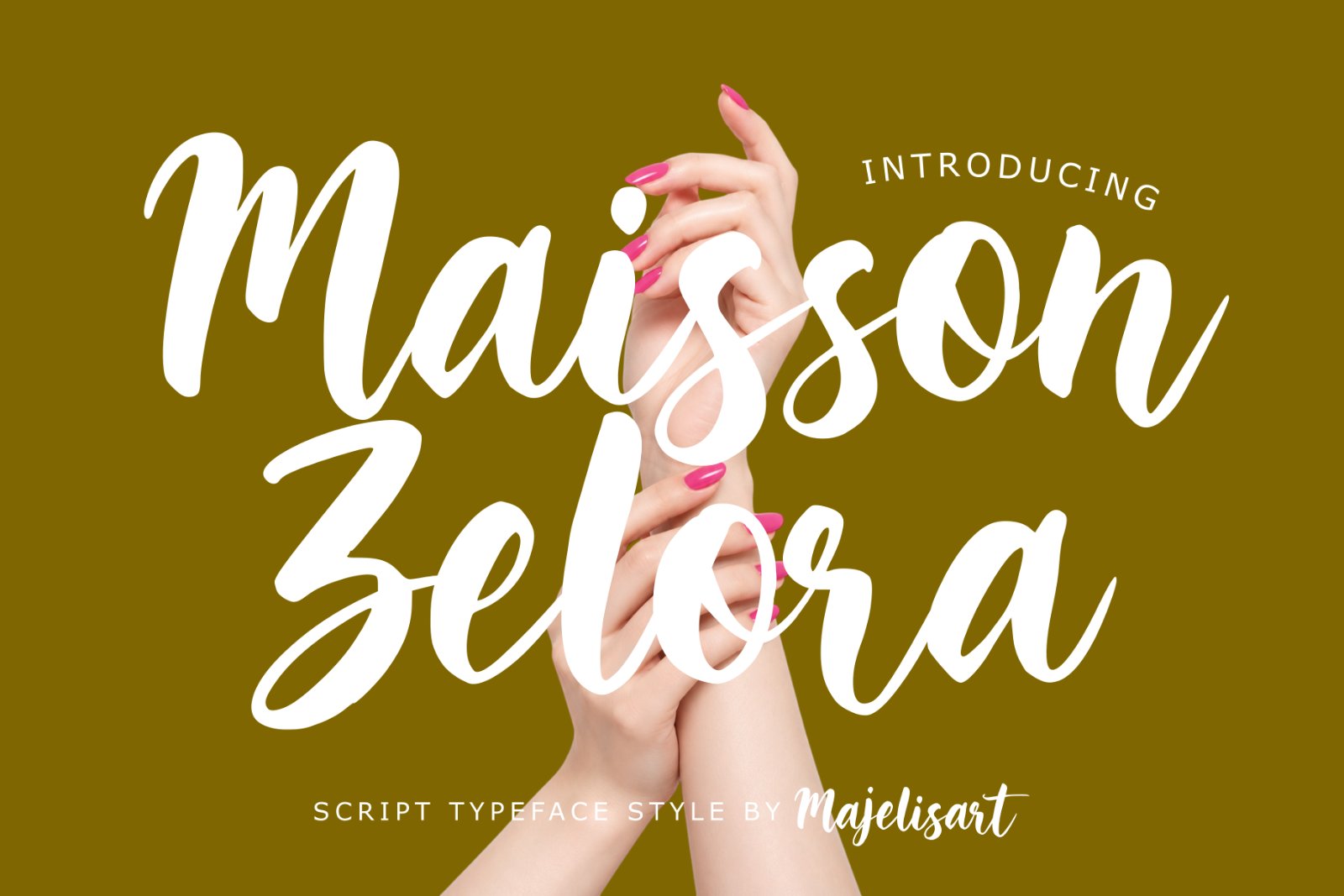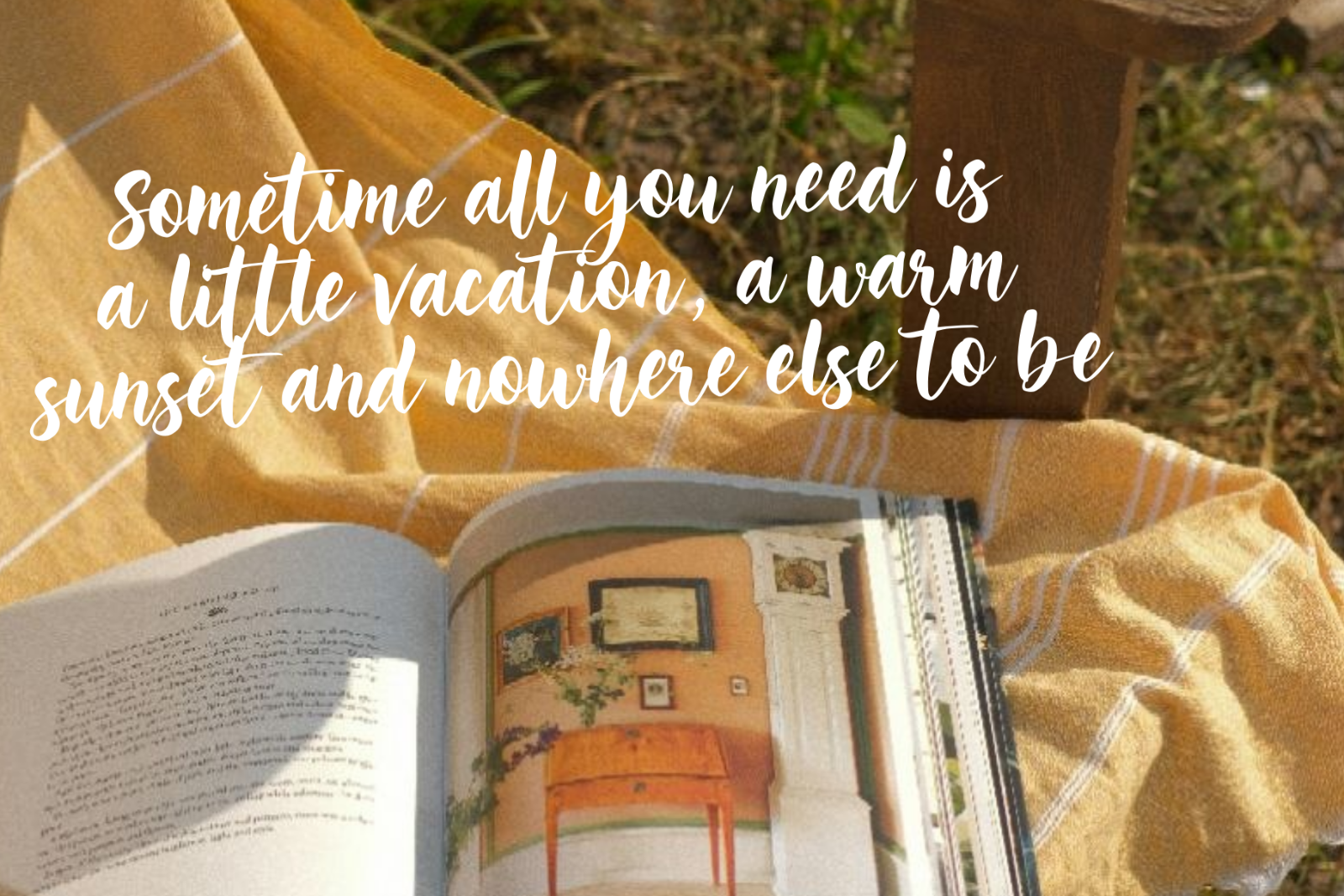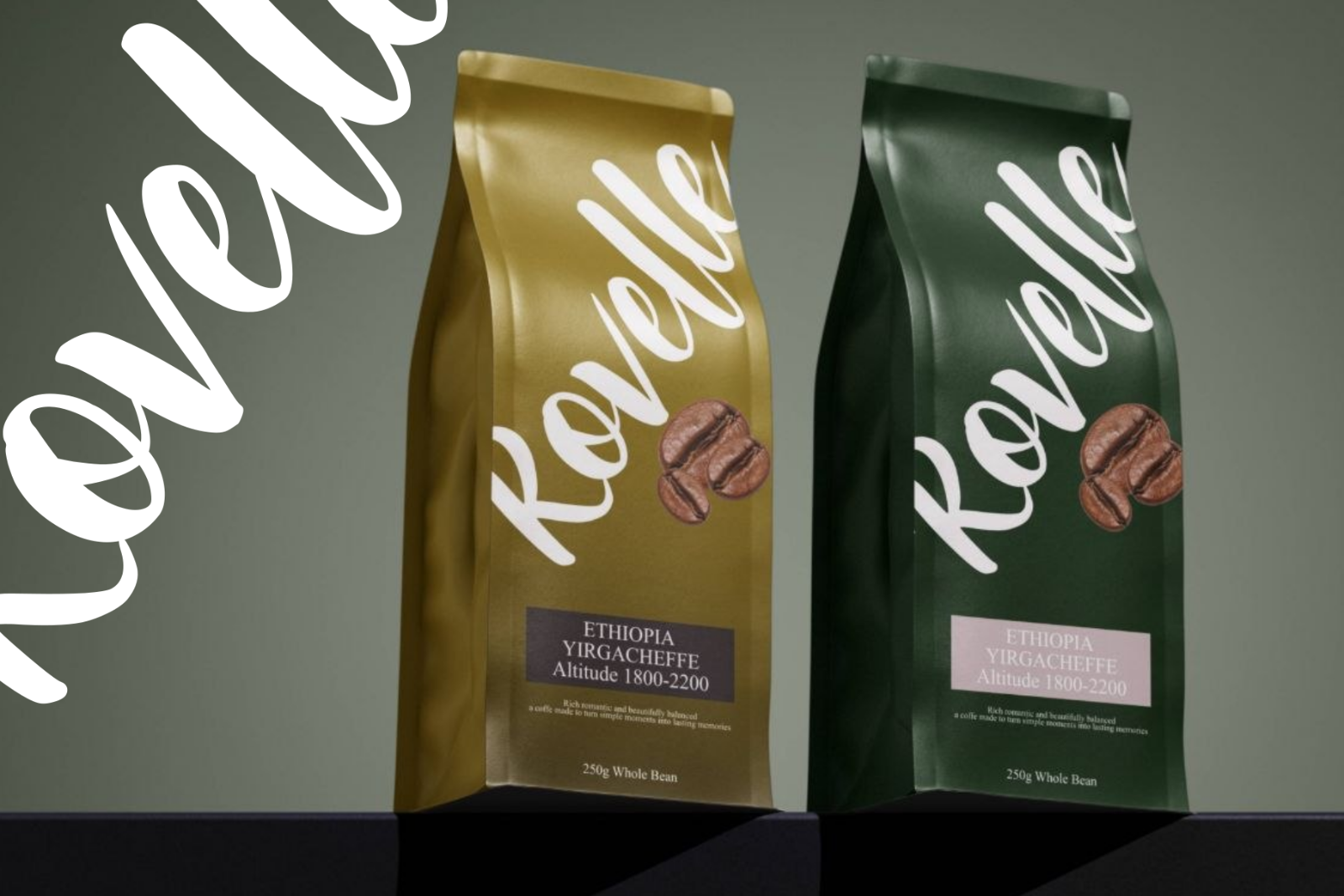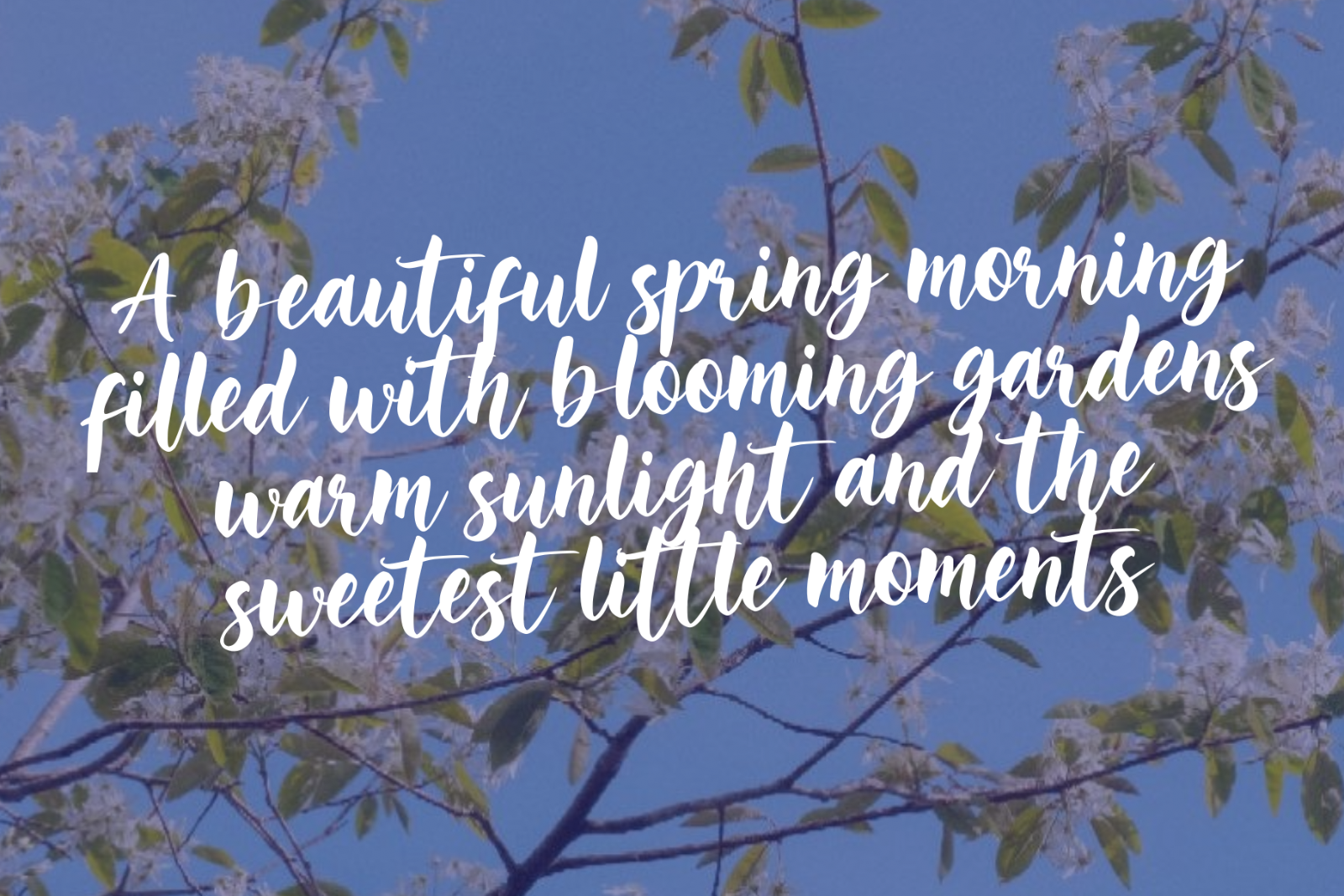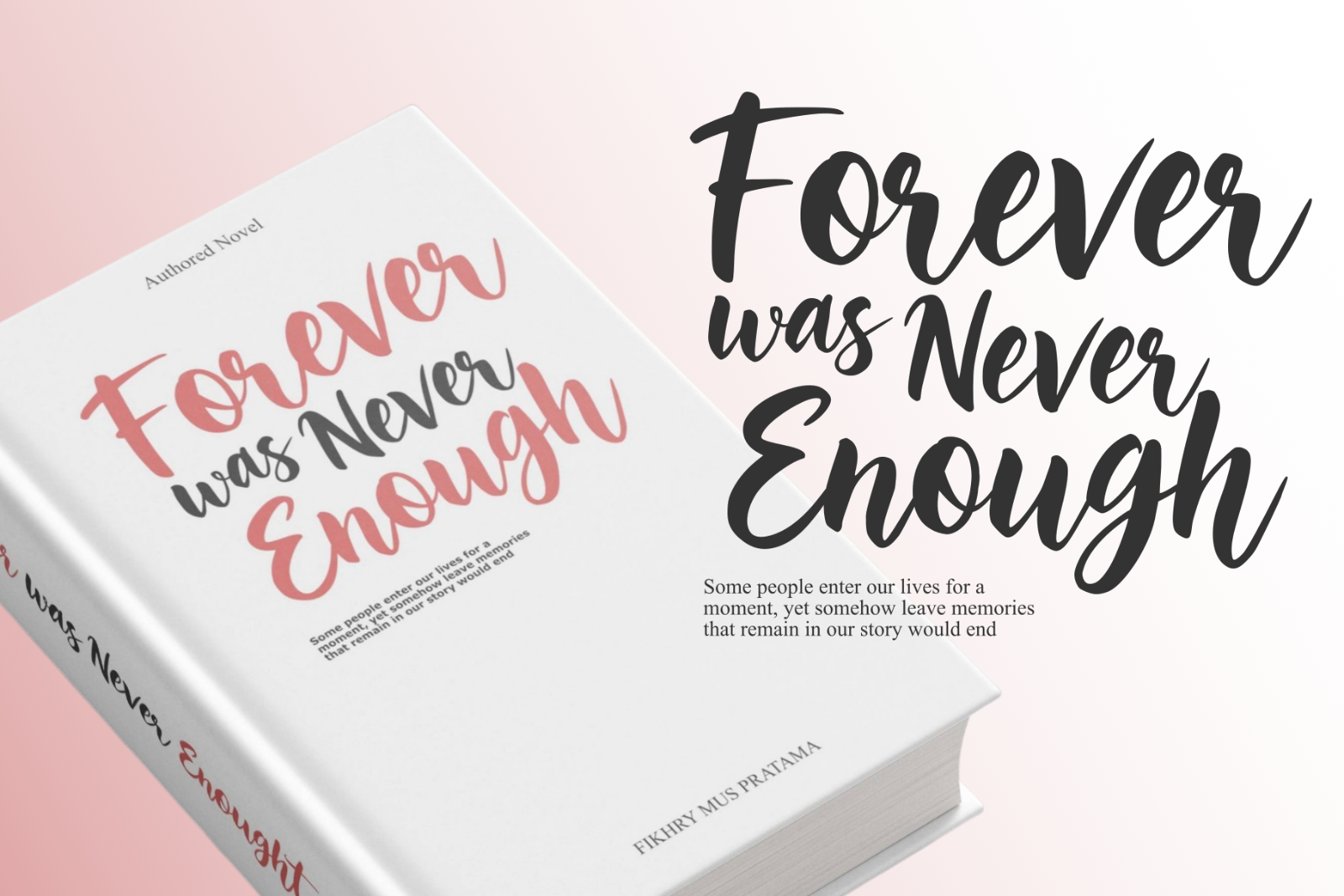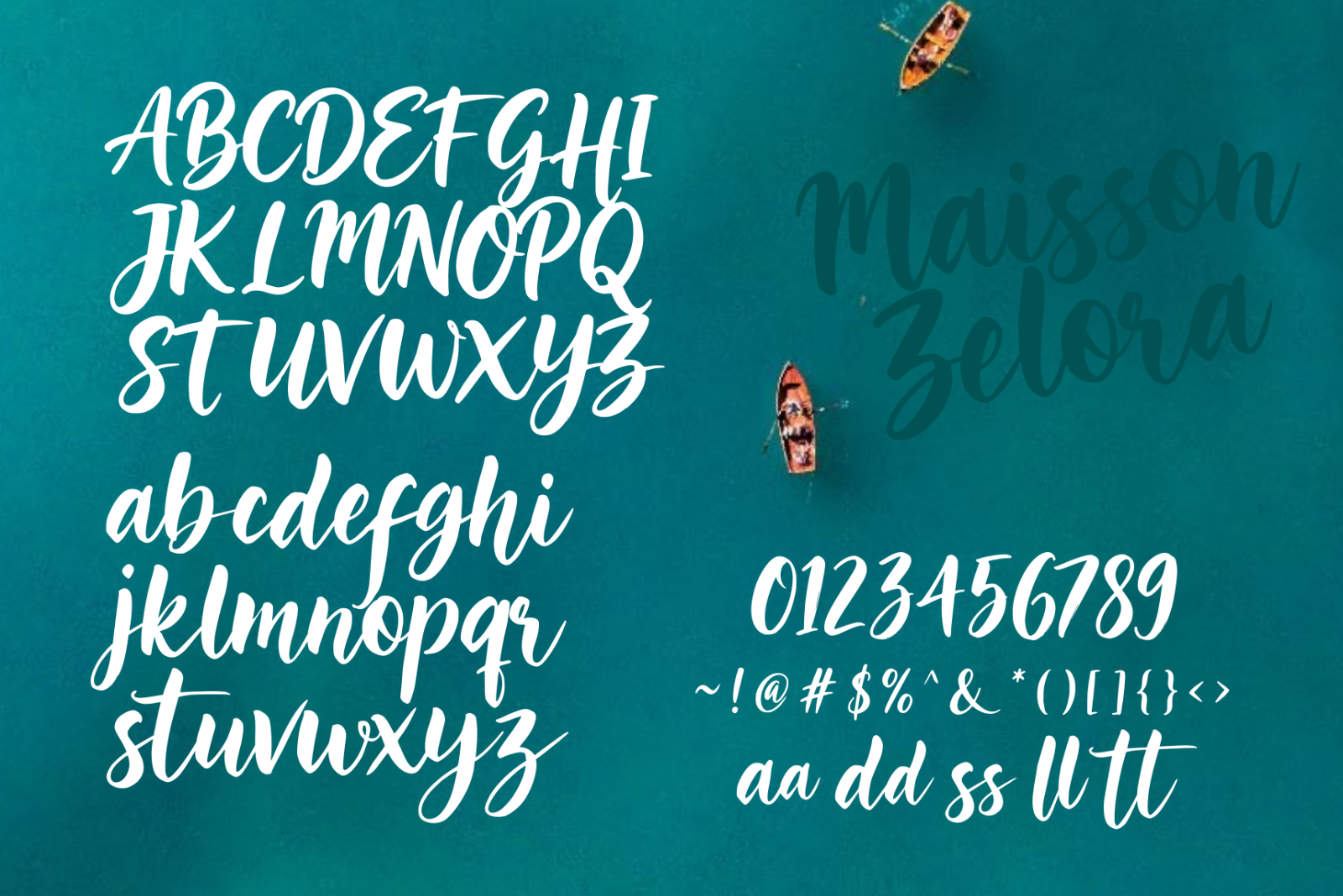
Maisson Zelora — Elegant Script Font
Introducing Maisson Zelora, an elegant and expressive Script Typeface designed with smooth, flowing strokes and a natural handwritten character.
Its graceful curves, connected letterforms, and relaxed brush-like appearance create a stylish and feminine aesthetic. Maisson Zelora brings a sophisticated yet effortless touch to designs, making it especially suitable for fashion, beauty, lifestyle, and personal branding.
Perfect For
Logo & branding
Fashion & beauty branding
Personal branding
Wedding invitations
Boutique designs
Photography & watermarks
Social media graphics
Packaging & product labels
Business cards
Quotes & greeting cards
Apparel & merchandise
Editorial designs
Luxury & lifestyle projects
Multilingual Support
Maisson Zelora includes multilingual support for supported Latin-based characters, making it suitable for creative projects intended for an international audience.
Maisson Zelora — Graceful strokes, elegant expression.